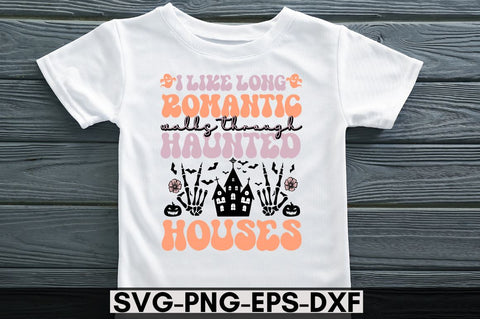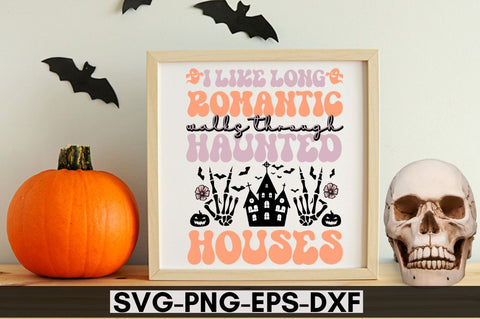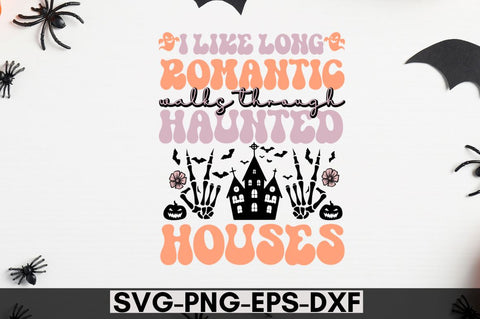
I like romantic walks through haunted houses SVG
This SVG Design is suitable for using with machines such as Cricut, Silhouette, and other cutting machines. This SVG design is modern SVG designs include proper illustrations, bright elements and modern retro fonts.